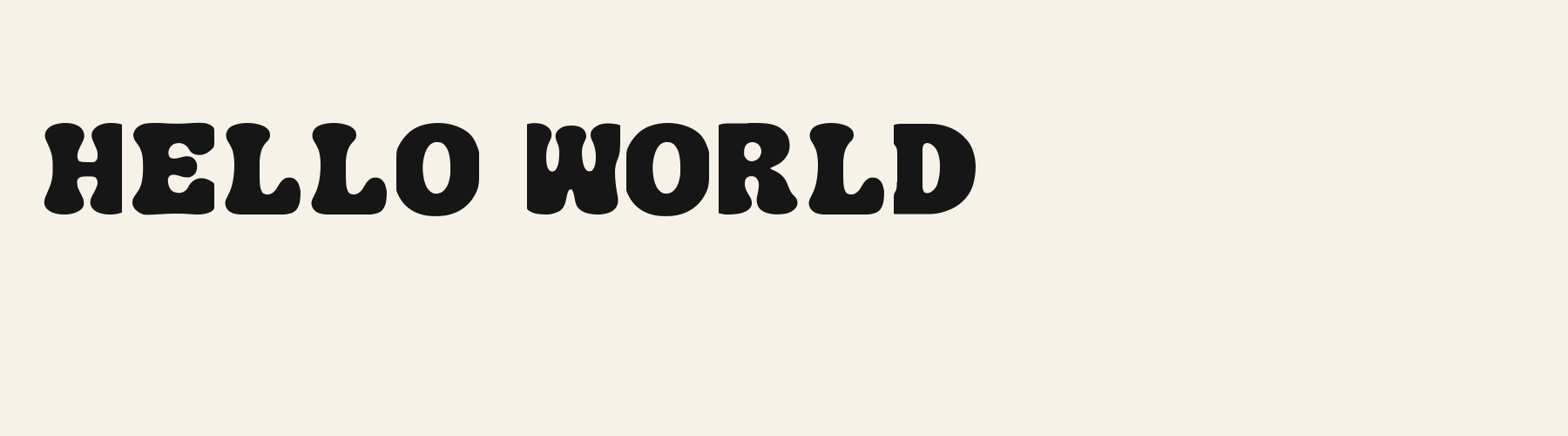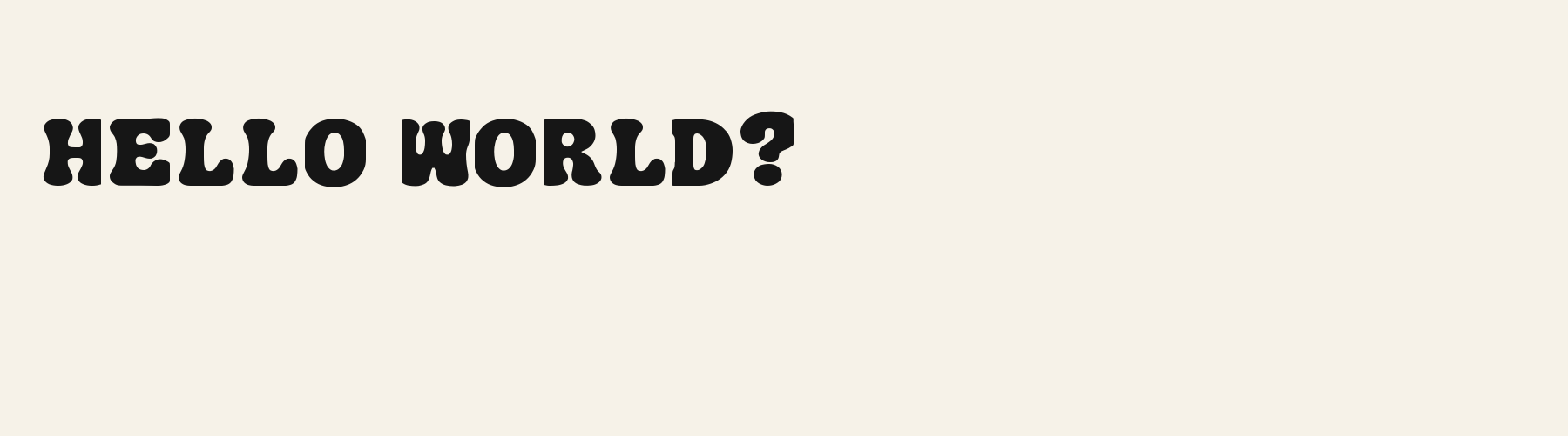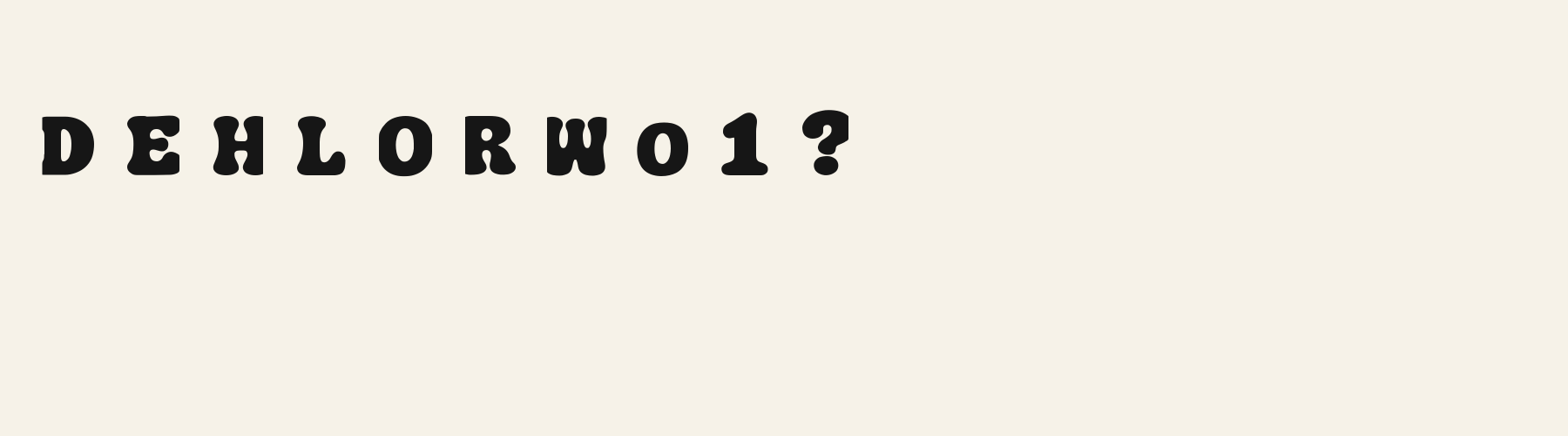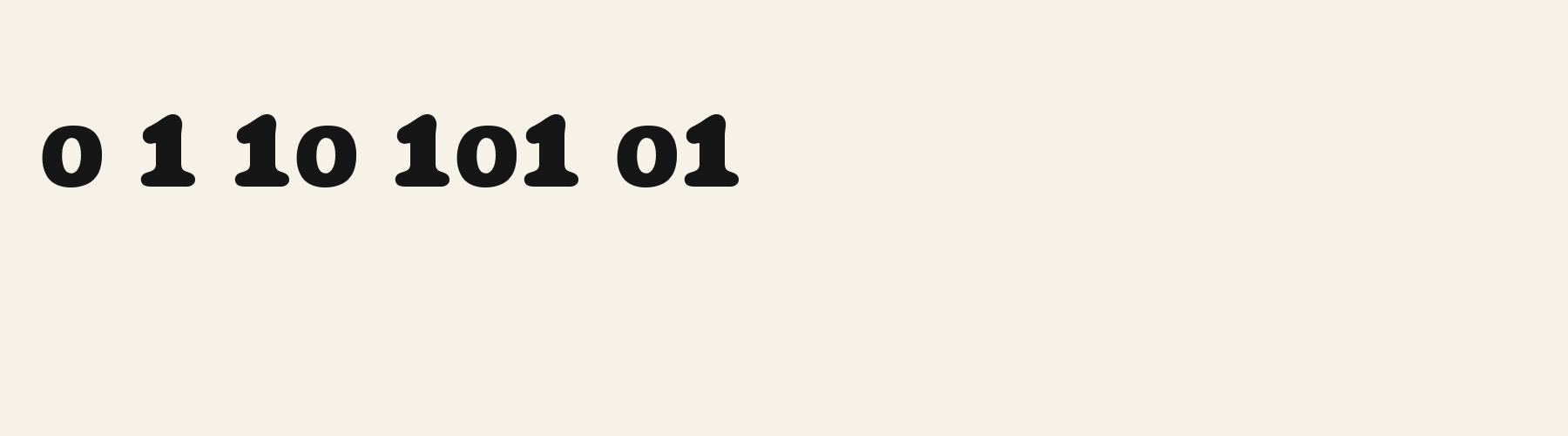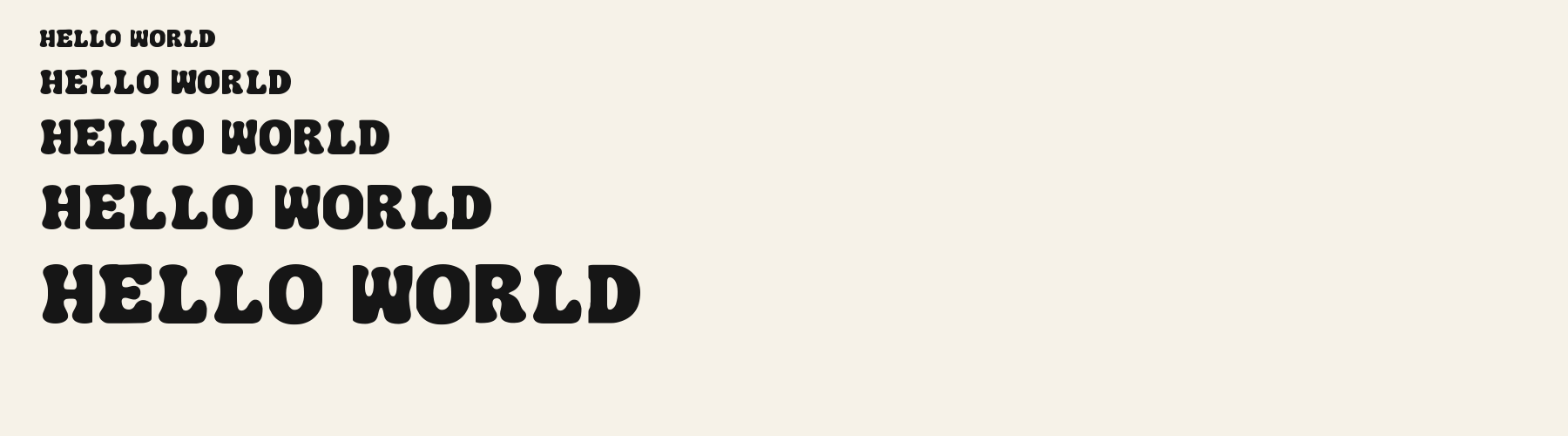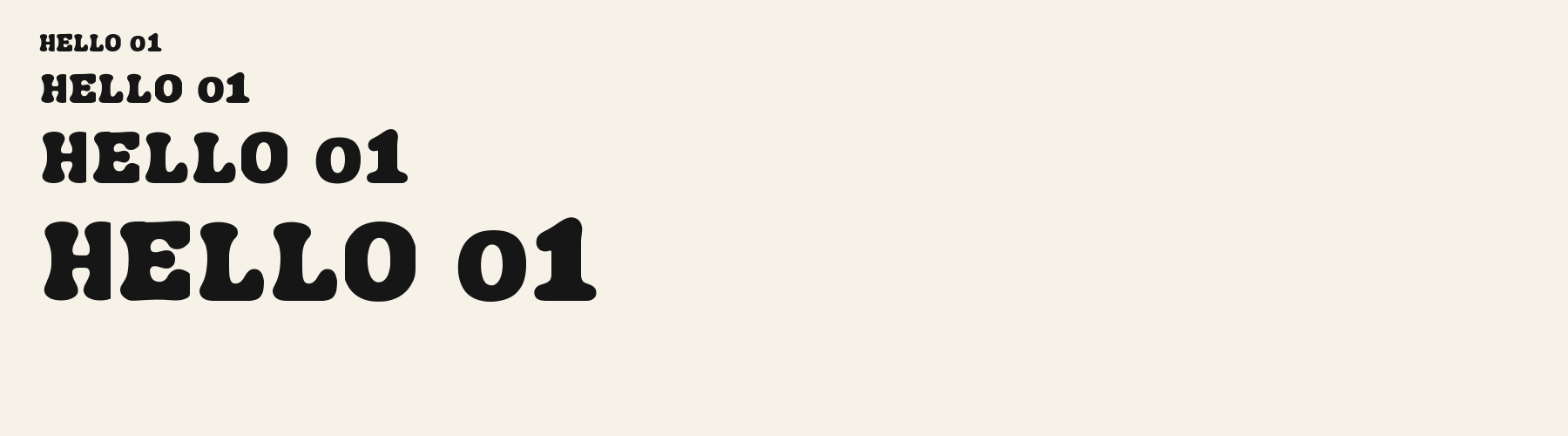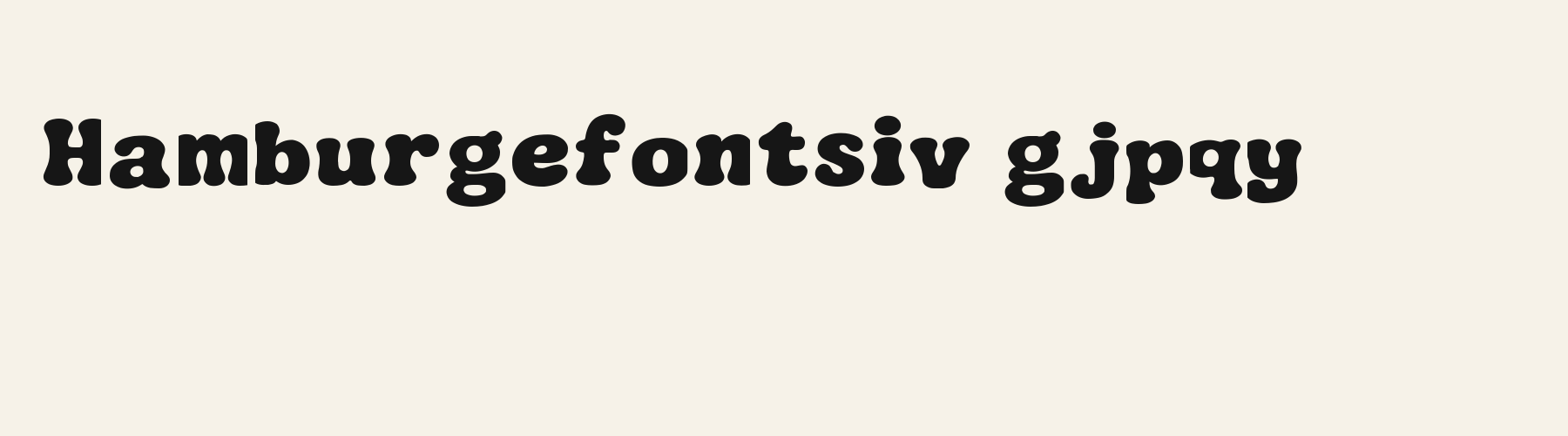
Pretty Bowline Soft
DisplayPretty Bowline Soft
Retro Disco Groove is an A lively retro groove for music posters, event titles, and apparel graphics, without imitating a named era font. Low contrast. Best for music posters, event titles, and apparel graphics.
Includes all 95 printable Basic Latin characters and 148 glyphs in total.
Verified language coverage: English (Basic Latin)